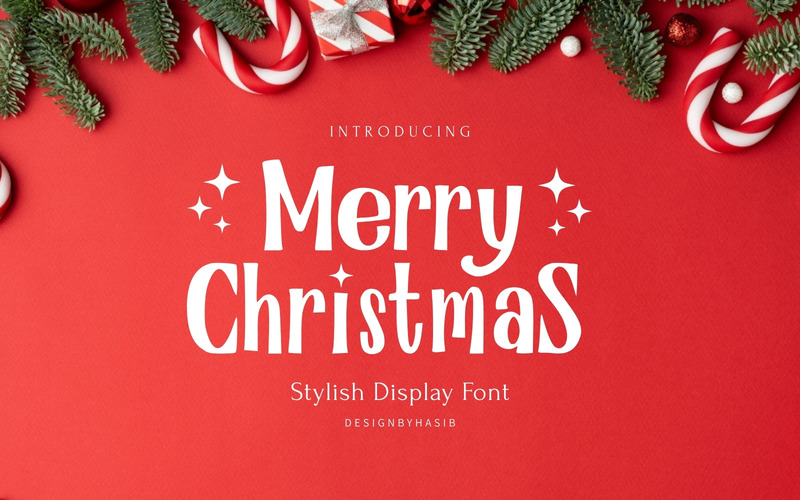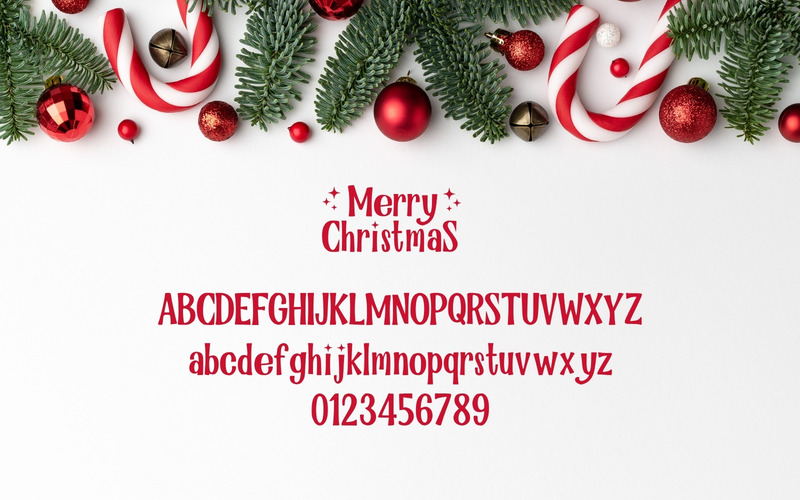
Merry Christmas - Brand New Stylish Display Font
Merry Christmas is a brand-new, stylish display font designed for holiday-themed designs, greeting cards, invitations, posters, social media graphics, branding, and advertising. This festive font features a modern and decorative style that adds warmth, elegance, and a joyful seasonal feeling to any creative project.